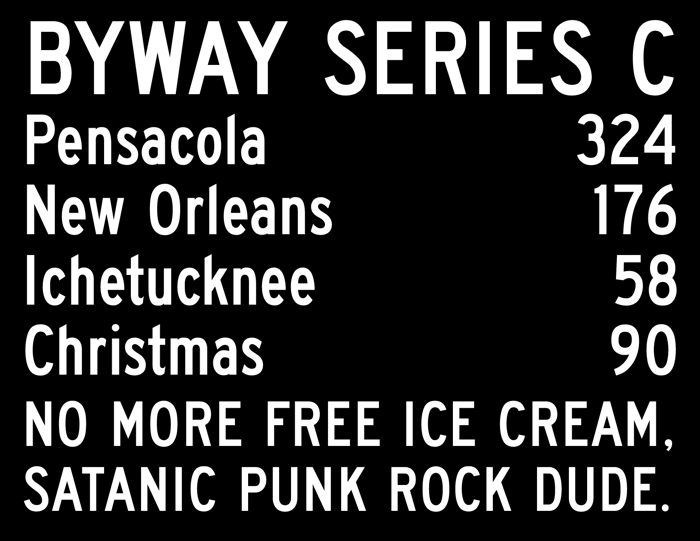
BywayC Font
This font was designed as a reinterpretation of the existing Series C type, and is completely different from the existing font. It incorporates the character of both the narrowest width (Series B) and the widest width (Series F), but is completely unrelated to the existing Series C font.